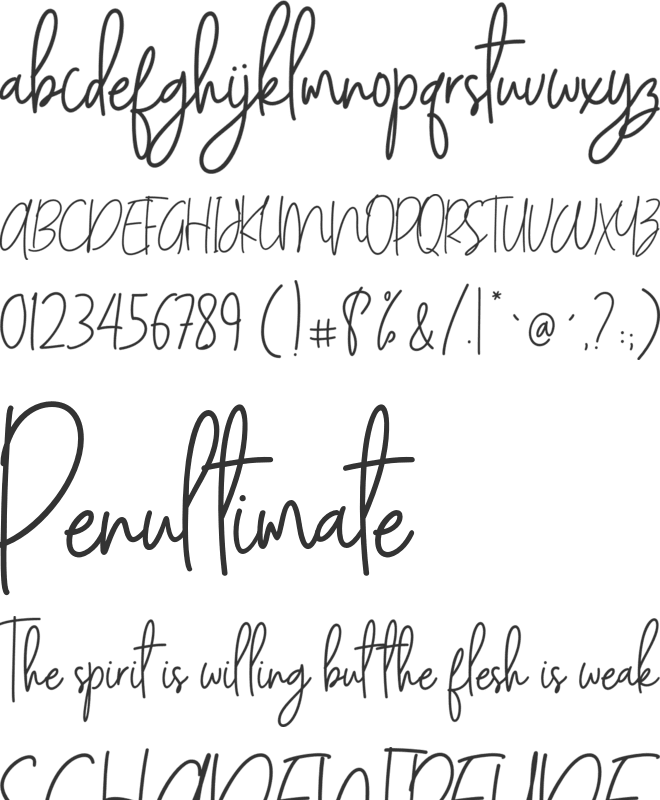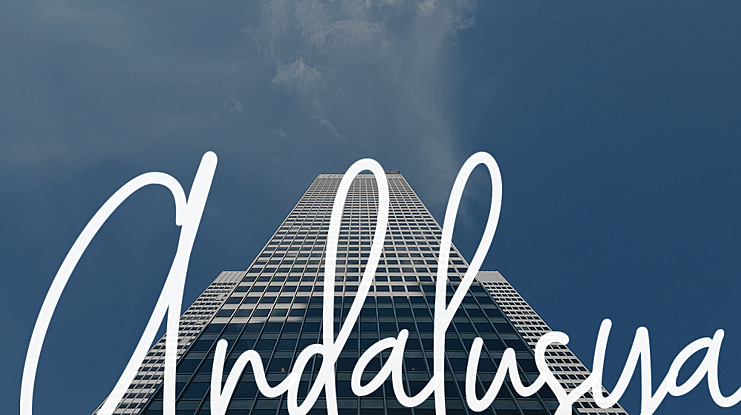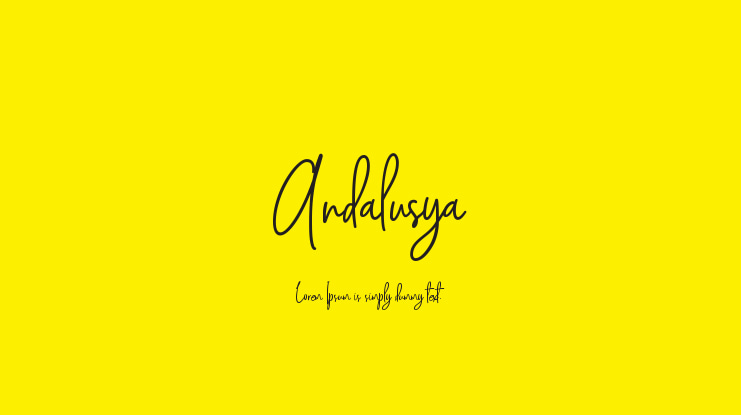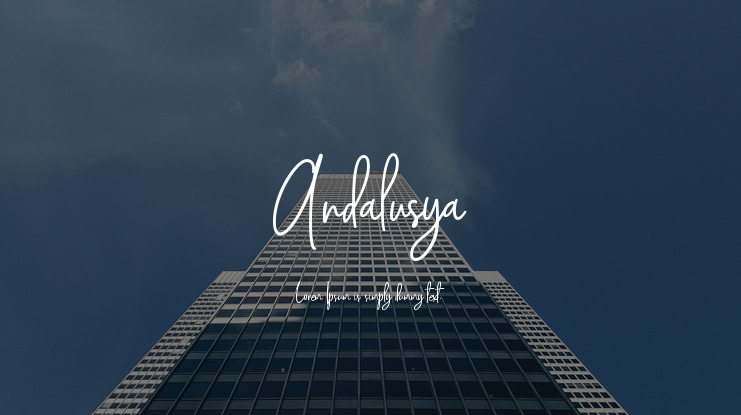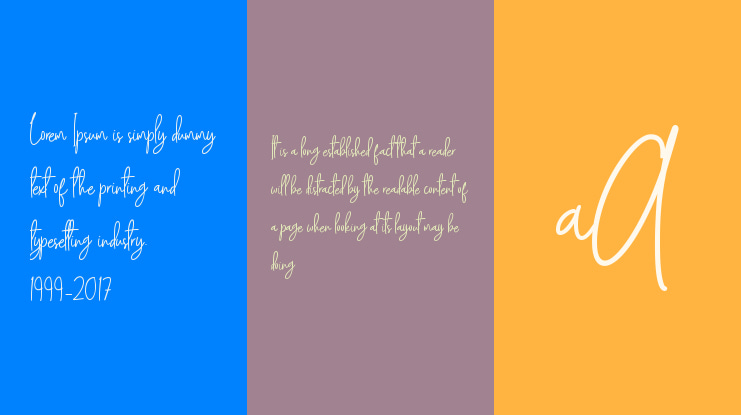
Andalusya Font
ANDALUSYA
A new modern script with a handmade calligraphy style. Great for branding materials, greeting cards, business cards, posters, quotes, etc. Open Type features can be accessed by using Open Type savvy programs such as Adobe Illustrator, Adobe InDesign, Adobe Photoshop Corel Draw X version, And Microsoft Word.
Andalusya font preview
Andalusya Regular font